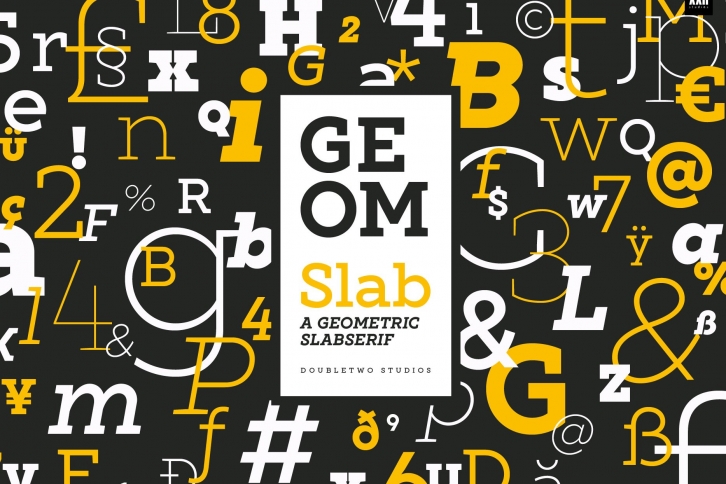
XXII GeomSlab are the additional slab-serif styles to the geometric sans-serif XXII Geom.
XXII Geom and XXII Geom Slab are modern geometric type systems designed with focus on functionality & legibility and with an eye on the old masters.
Their well balanced low contrast letter shapes come with a tall x-height. With its range of Opentype features it is designed to fulfill the needs your content deserves (Smallcaps, Case Sensitives, Ligatures…) as well as serving your individual taste (Stylistic alternates & Sets).